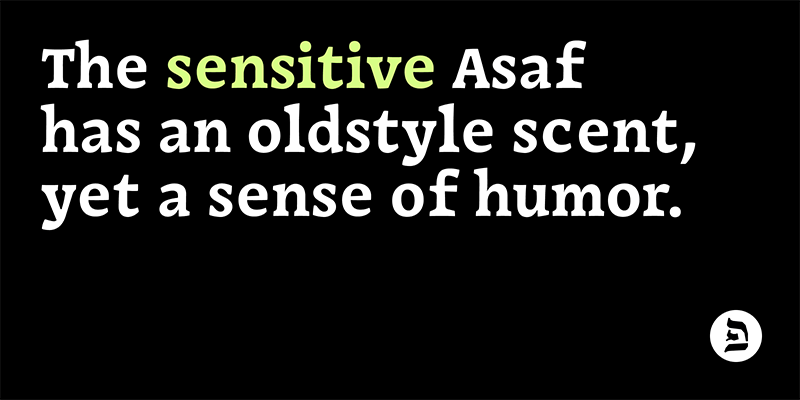
Narkiss Asaf Variable Font Free Download is a contemporary Hebrew typeface that blends modern aesthetics with the timeless elegance of the Narkiss font legacy. Designed for expressive visual storytelling, branding, editorial projects, and cultural content, this typeface offers a refined voice with subtle stylistic character and high readability.
As a variable font, Narkiss Asaf offers smooth control over weight, allowing designers to move fluidly from light to bold styles within a single file. This makes it especially valuable in responsive environments, where maintaining consistency across screen sizes and design hierarchies is essential.
What sets Narkiss Asaf Variable Font Free Download apart is its sophisticated approach to letterform design—clean, carefully balanced, and designed to work seamlessly in both display and text settings. Whether you're working on a cultural publication, museum branding, or a bilingual editorial layout, this typeface delivers both form and function.
Narkiss Asaf is more than just a modern Hebrew font—it’s a bridge between heritage and innovation. Elegant, versatile, and thoughtfully crafted, it's the perfect tool for designers who want to elevate Hebrew typography with contemporary flair.